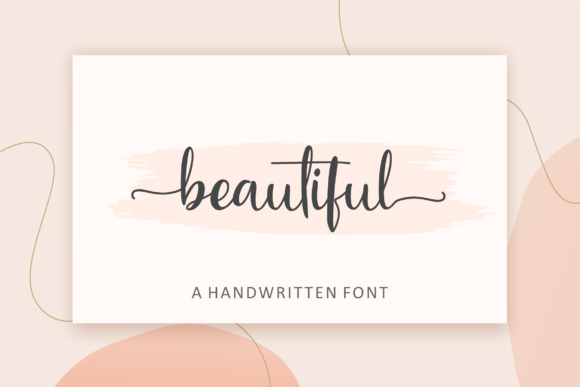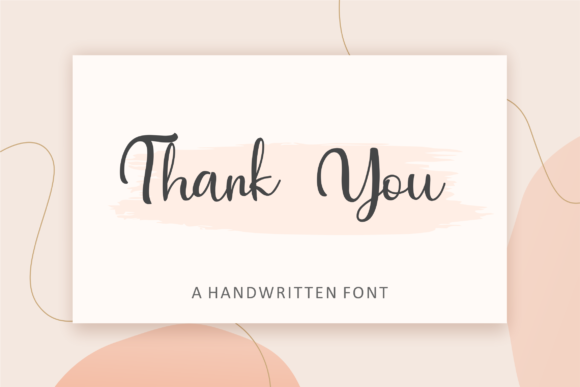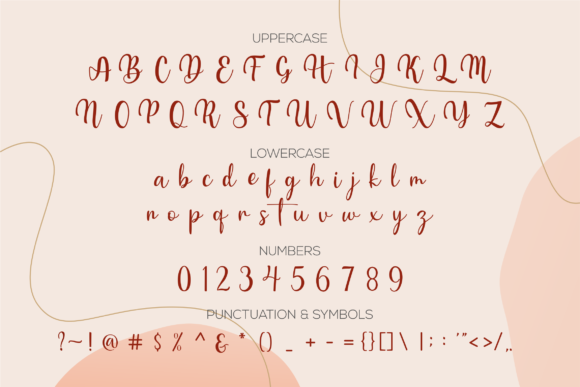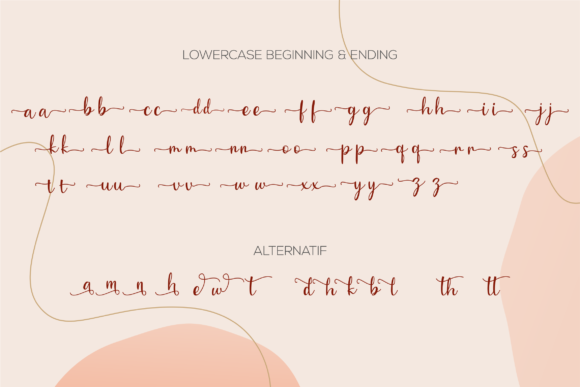
Bernita Font
About Bernita Font
Bernita is a flowing and authentic script font. This font is perfect for any branding project such as logos, t-shirt printing, creative products, and more. extraordinary in a variety of contexts.